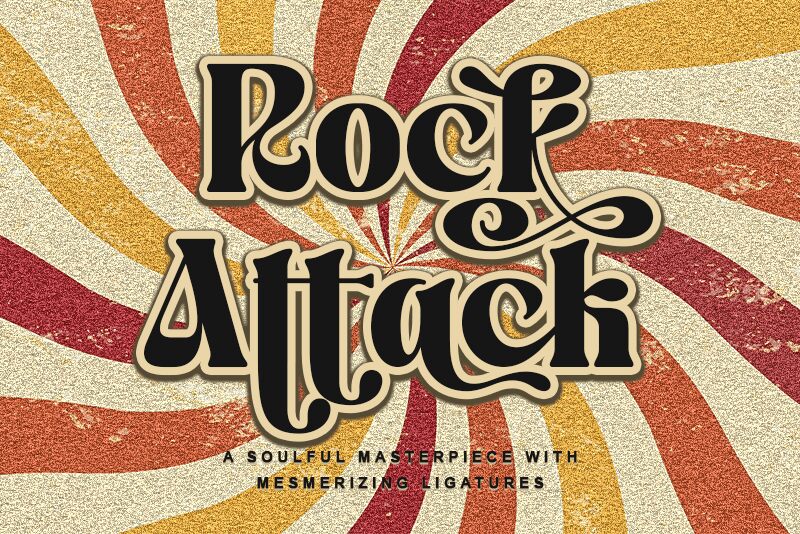
Rock Attack font by Letterara is a free retro font meticulously designed to embrace the spirit of the past. With an ornate, decorative, and whimsical nature, this font shines with its bold impact and artistic flair. Its dynamic flow and ornate ligatures contribute to a playful yet sophisticated retro appeal, bringing visual complexity and nostalgic charm to any graphic design project.
Rock Attack finds its fit at the forefront of headlines and headings, charming readers with titles, logos, packages, signage, advertising, labels, stationary, and magazines. Vintage-inspired designs will benefit most from this expressive typeface thanks to its contribution to the overall realistic visual identity presented.